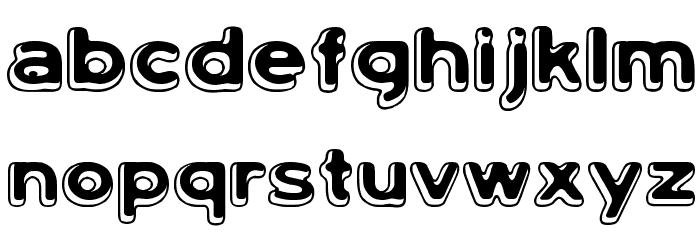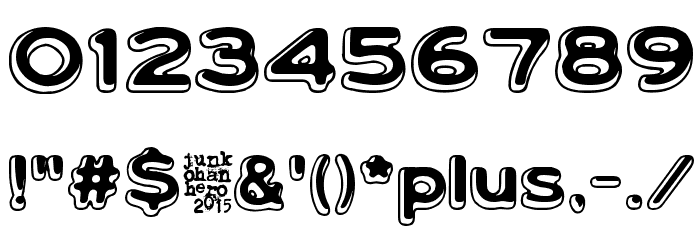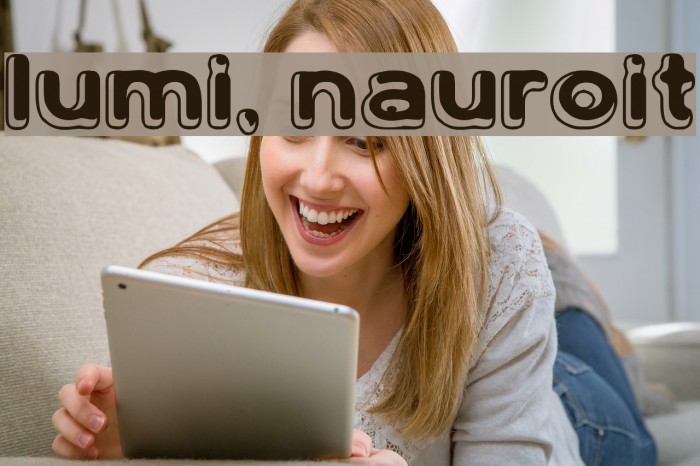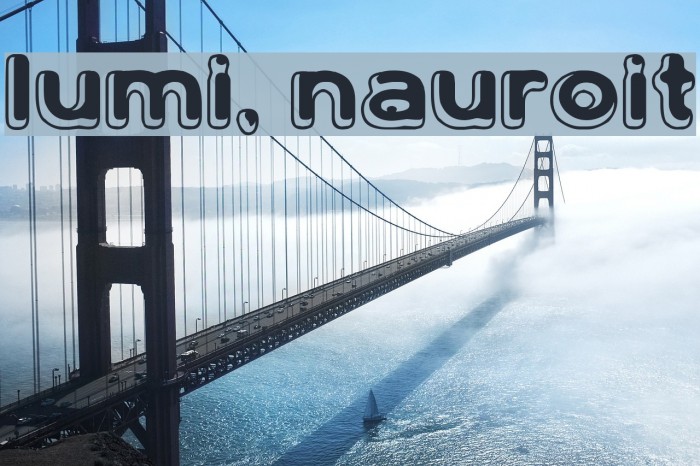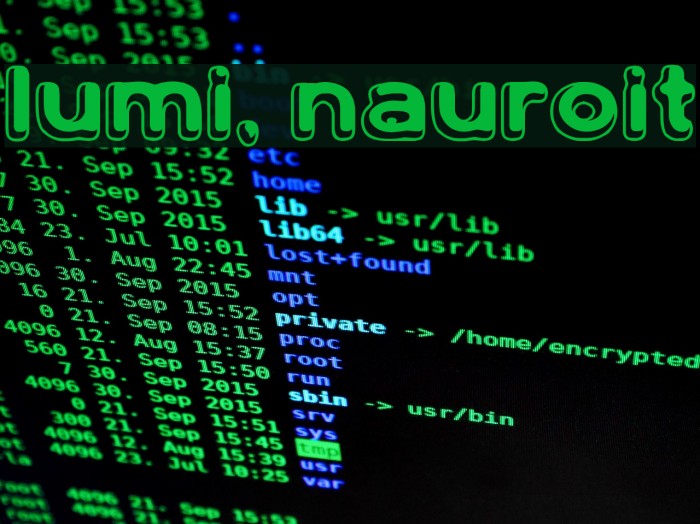
Lumi, nauroit Font
This font features a playful and bold design with a bubble-like outline that gives it a three-dimensional appearance. The characters are rounded and have a thick, consistent stroke that enhances their visibility and impact. The font includes both uppercase and lowercase letters, numerals, and a variety of special characters. Its unique style is reminiscent of comic book lettering, making it ideal for projects that require a fun and engaging look. The spacing between characters is normal, ensuring readability while maintaining its distinctive style.
A playful, bold font with a bubble-like outline and rounded characters.
- Proposed Projects: Ideal for comic books, children's books, playful branding, and posters.
- Overall Style: Playful, Comic